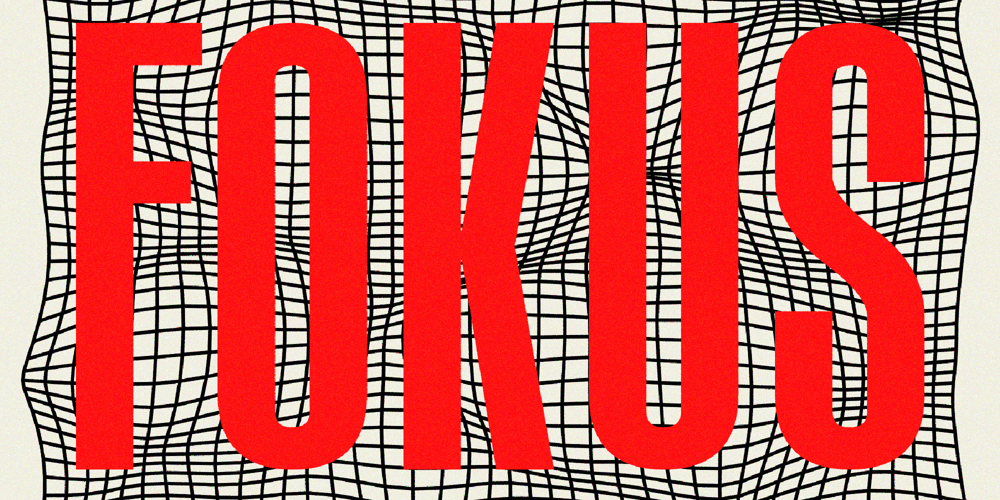
Fokus
Fokus font
Fokus Font Family was designed by Igor Ovsyannykov and published by Hipfonts. Fokus contains 2 styles and family package options. Fokus was inspired by mid-century print design. The height of this condensed typeface automatically draws attention and can be utilized to create beautiful headlines, logos, quotes, posters, social media, headlines, magazine titles, clothing, large print formats, and more.You can easily pair it with scripts and bold sans serif fonts. Fokus comes in two versions, regular and thin, which makes it super versatile and fun to experiment with.